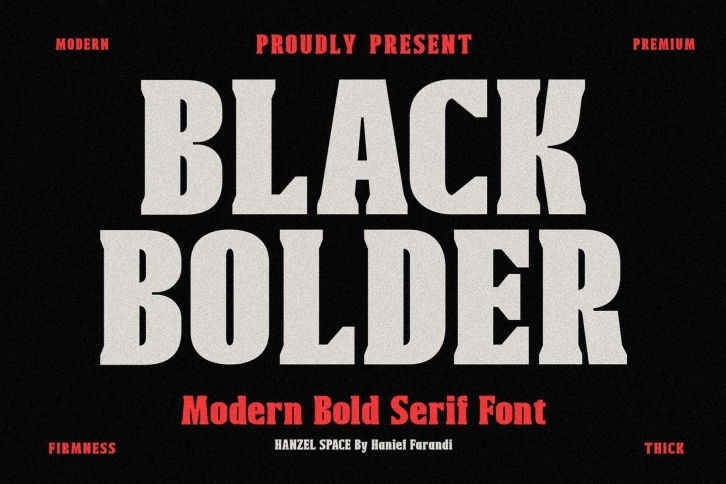
Black Bolder is a solid and powerful font. Use it for titles, logos, labels, brands, advertisements, magazines, or pamphlets, and will definitely create a strong impression.